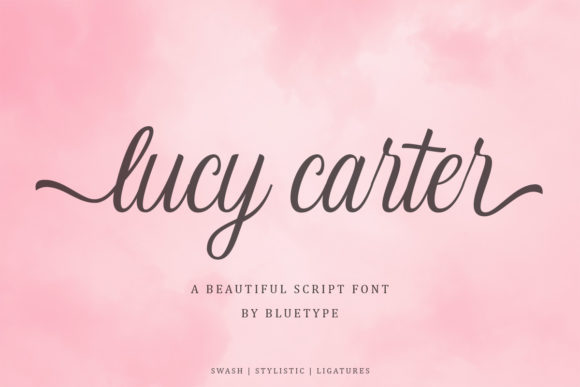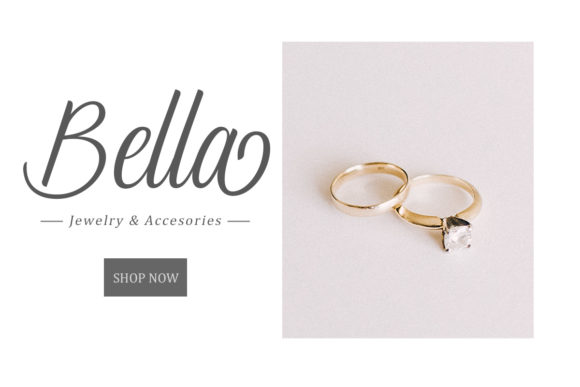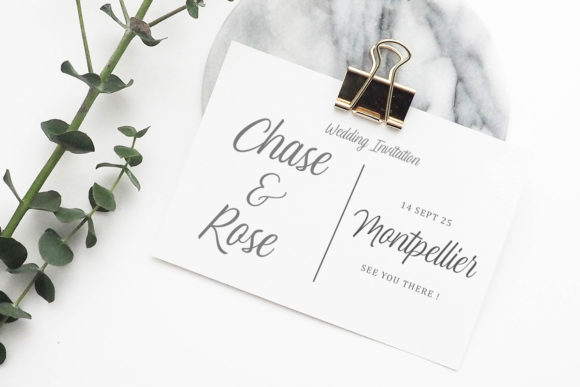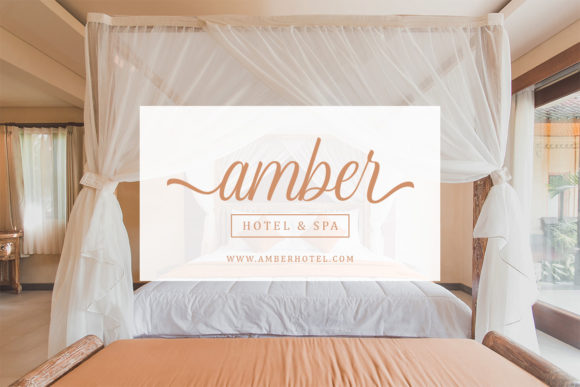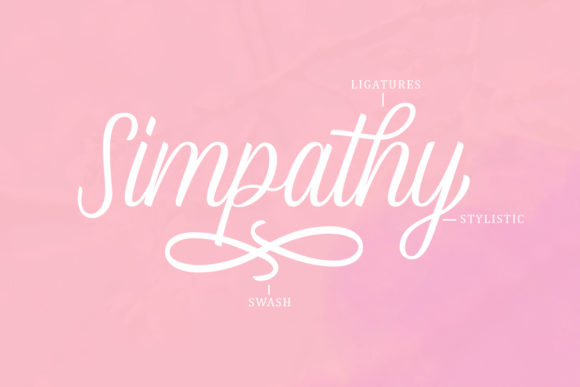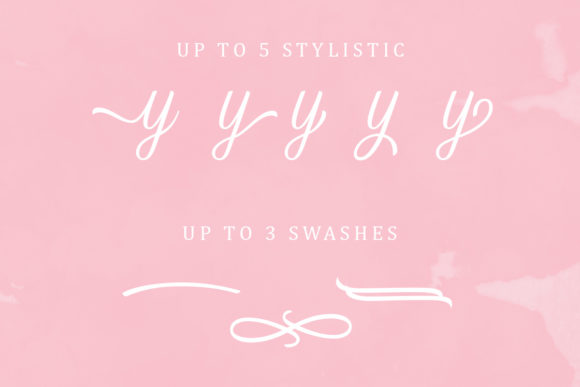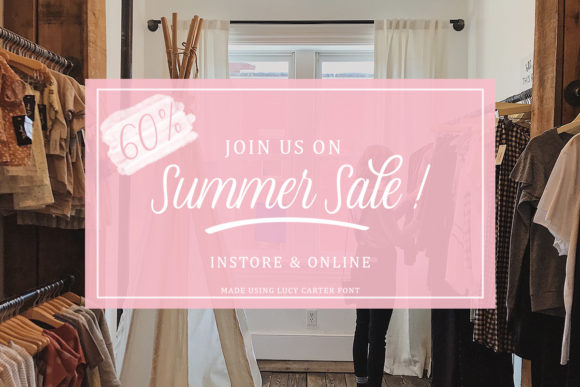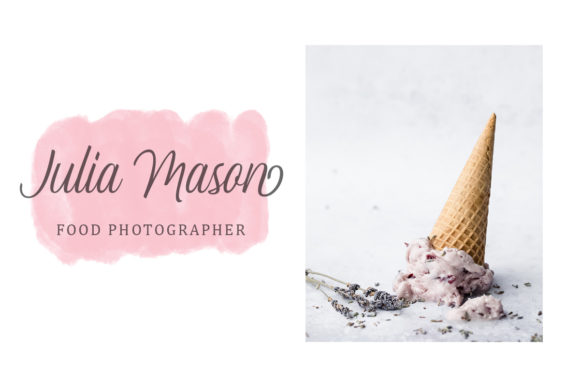
Lucy Carter Script Font
About Lucy Carter Script Font
Lucy Carter Script is a light and elegant handwritten font with an undeniably lovely charm. Fall in love with its authenticity, and turn any design project into a stand out!